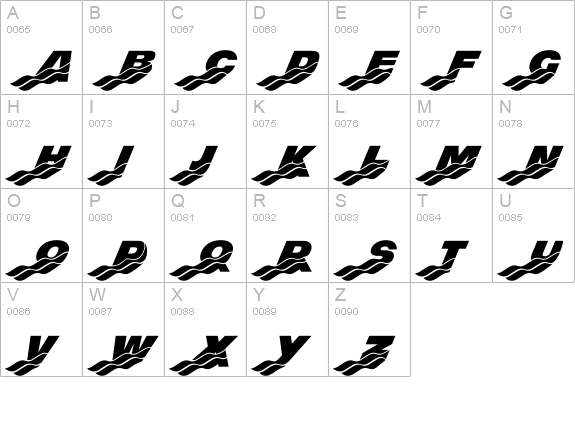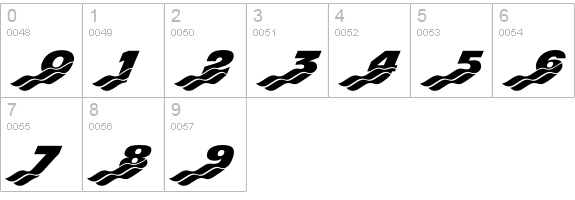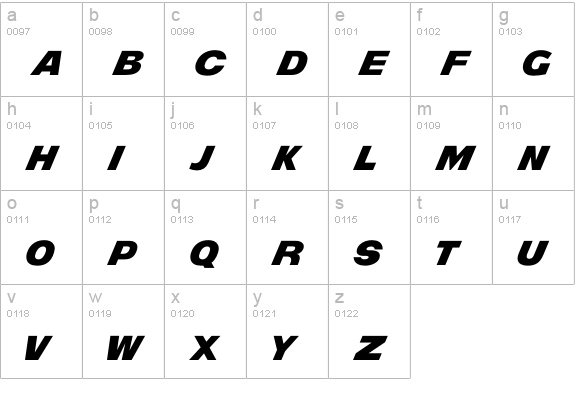
MightyRapids Font Details
MightyRapids font is a captivating and dynamic typeface that exudes energy and power. Its bold and robust letterforms make a strong statement, perfect for headlines, posters, and branding projects. The flowing lines and sharp angles of MightyRapids give it a modern and edgy feel, making it a versatile choice for a wide range of design applications. What sets MightyRapids apart is not only its striking design but also the fact that it is available for free download at FontsMarket.com. This means that designers and creatives can easily access this impressive font without any cost, adding a touch of boldness and creativity to their projects without breaking the bank. Whether you're working on a bold advertising campaign or a striking logo design, MightyRapids is sure to make a powerful impact. Download it for free today and unleash its might and energy in your next project.